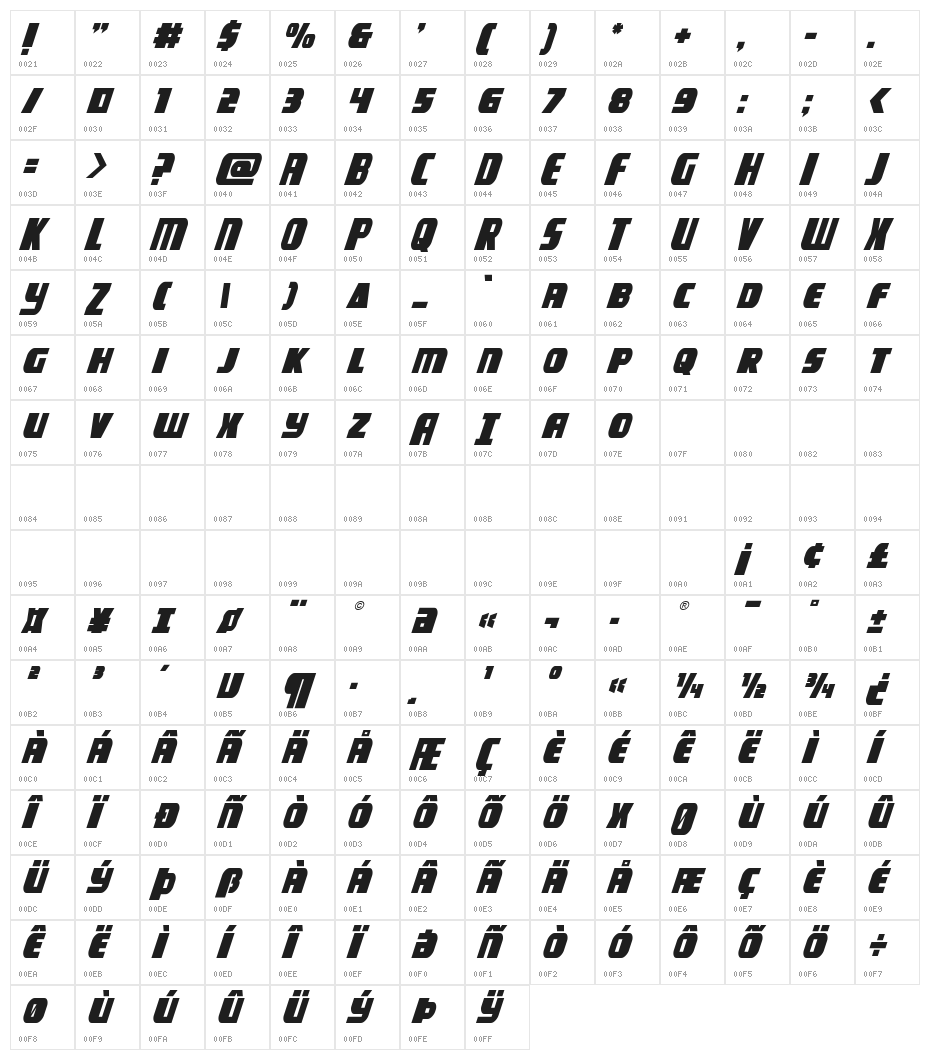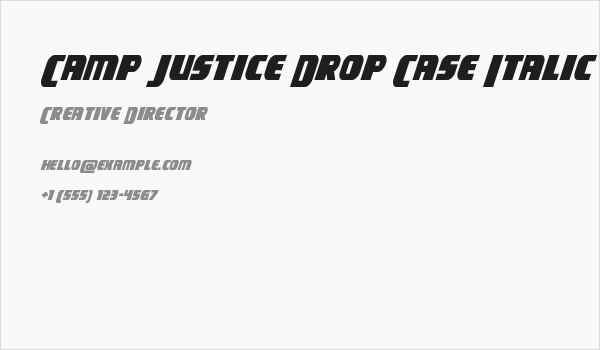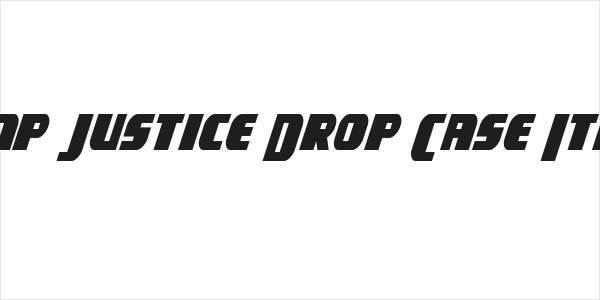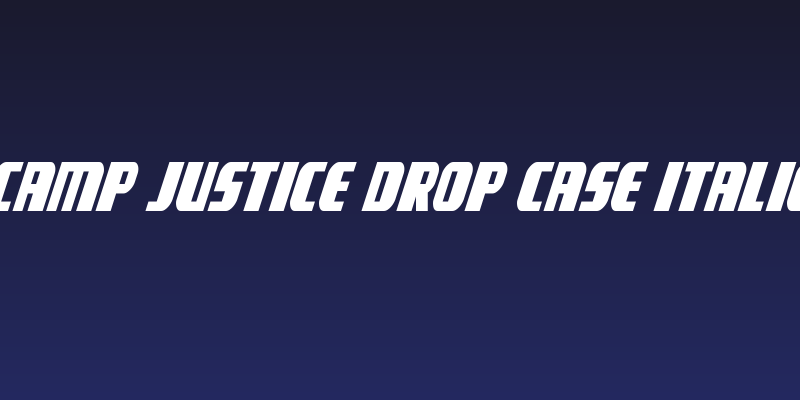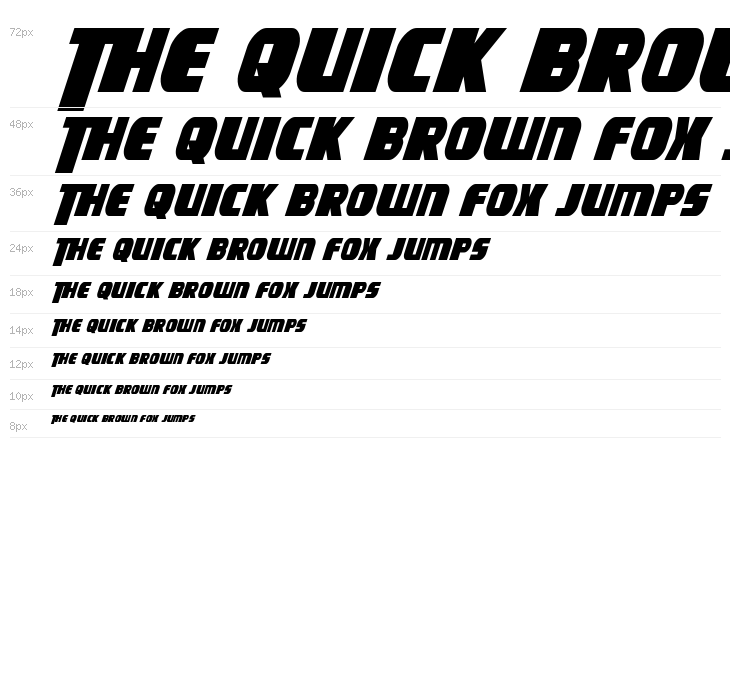
Camp Justice Drop Case Italic Font
Camp Justice Drop Case Italic Description
This font features a bold and dynamic style with a strong italic slant, giving it a sense of motion and energy. The characters are wide and robust, with thick strokes that convey a sense of power and impact. The uppercase and lowercase letters are consistent in style, maintaining a cohesive look throughout the alphabet. The numbers and special characters are designed with the same boldness and slant, ensuring uniformity across all elements. This font's aggressive and modern appearance makes it suitable for projects that require a strong visual presence.